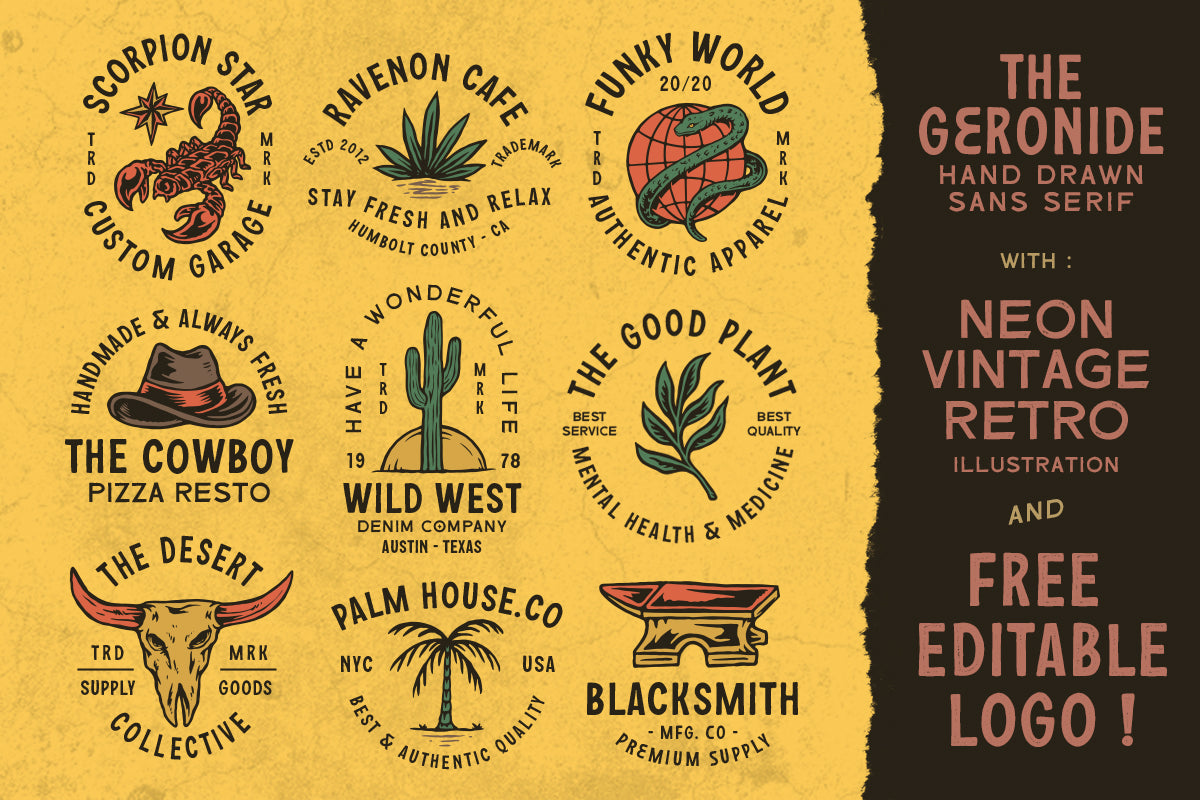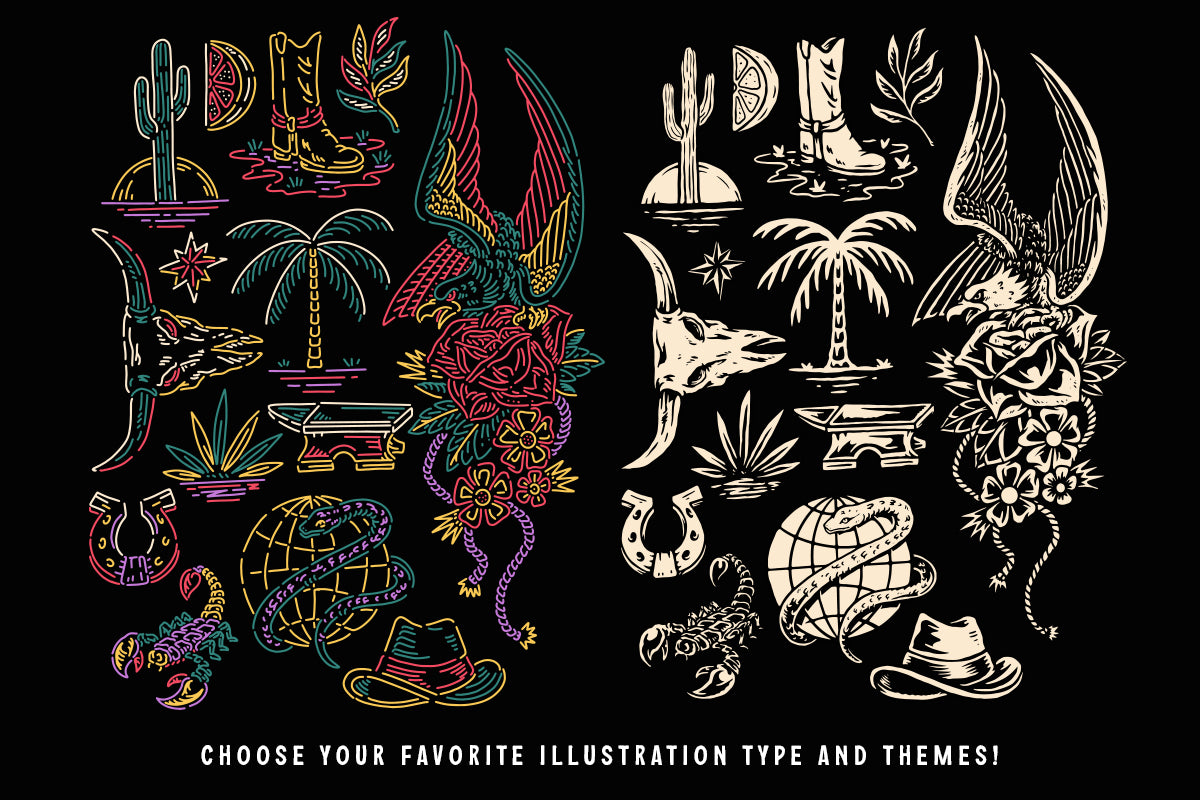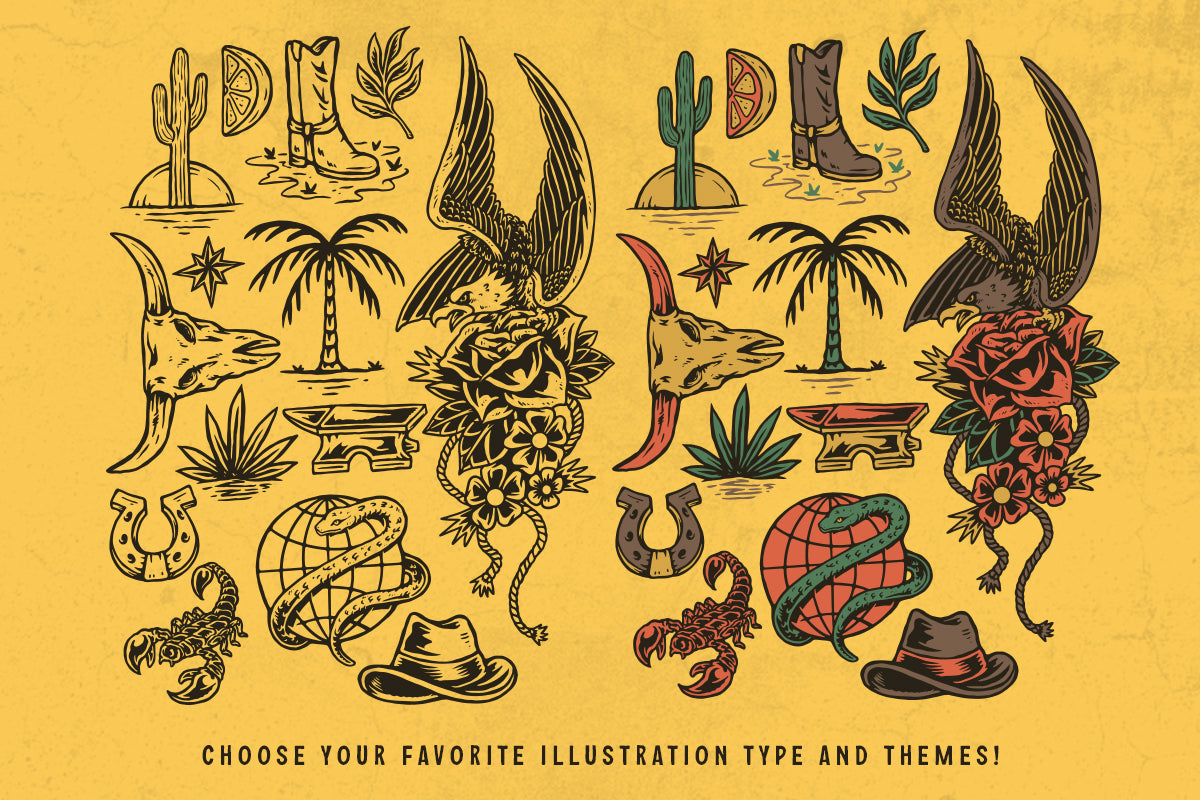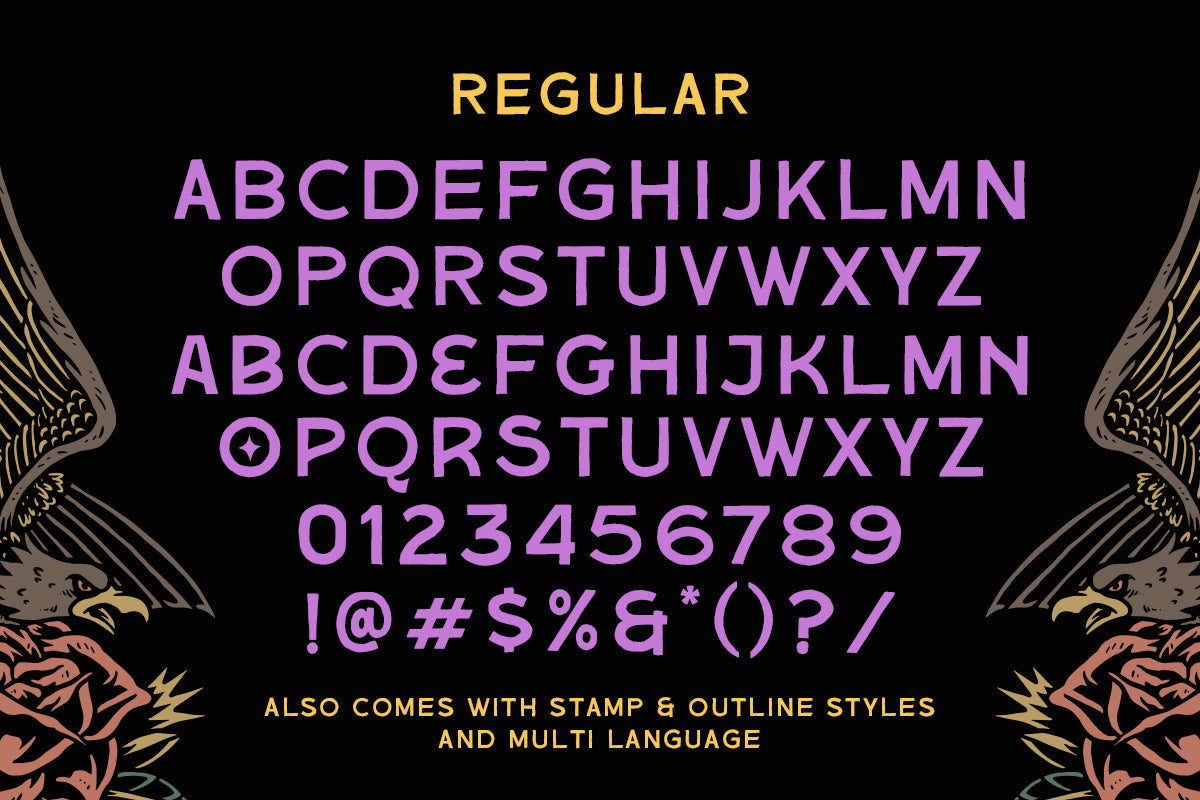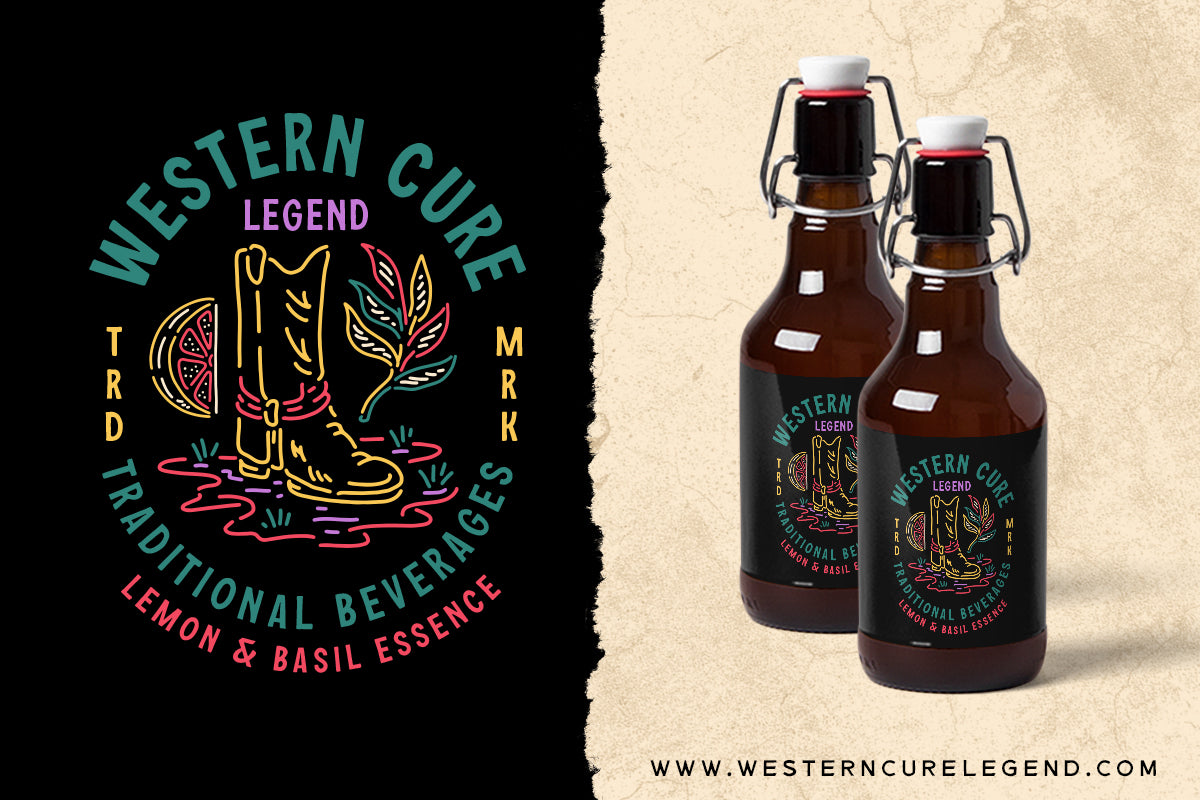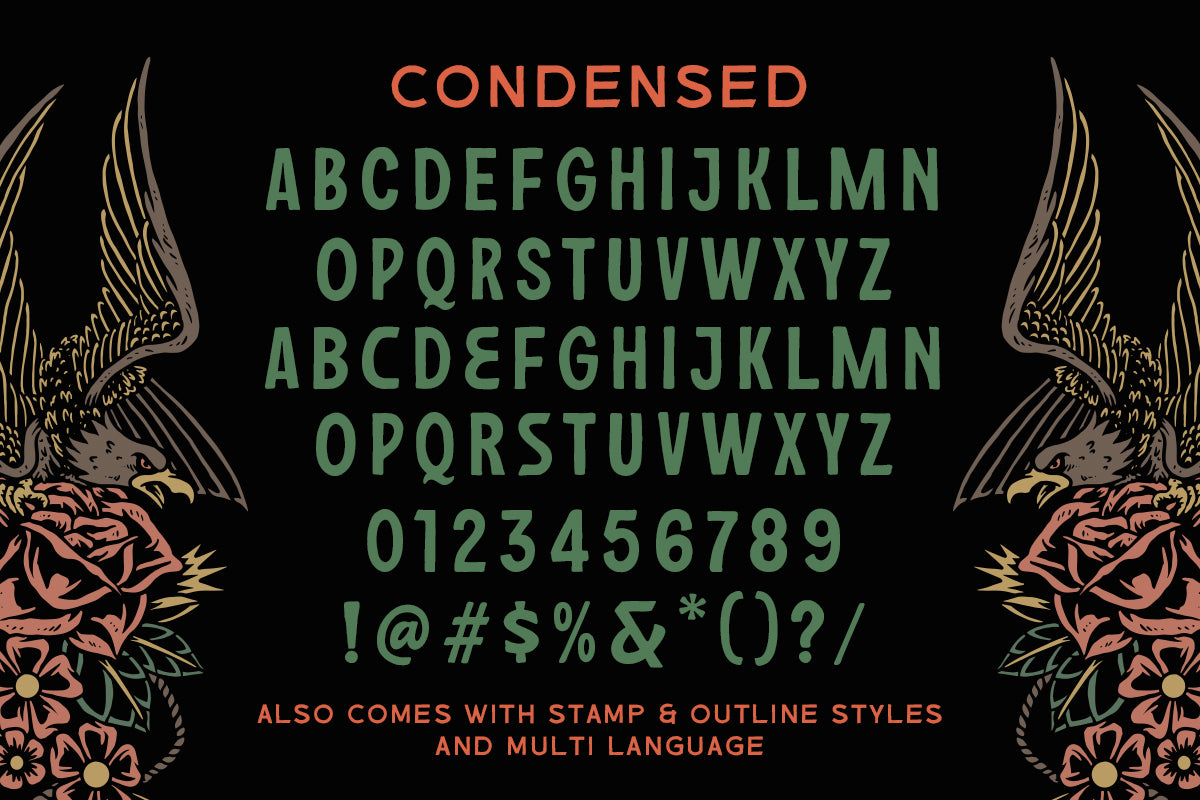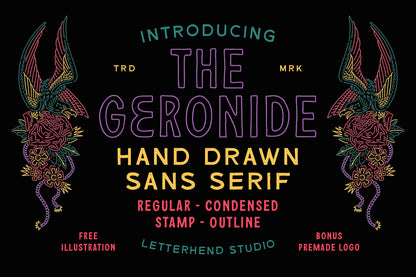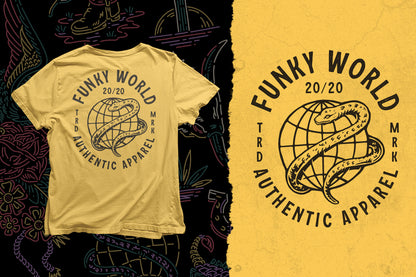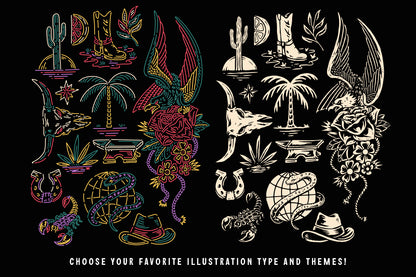
Introducing The Geronide - A hand-drawn sans serif. This unique font has four styles: Regular, Condensed, Stamp, and Outline.
It's very suitable for those who like to create a vintage design theme, especially with the amazing and detailed illustrations included as a bonus!
Key Features
4 Font Styles: Regular, Condensed, Stamp, and Outline
14 Neon Vintage Retro Illustrations
9 Editable Logo Templates
Numbers and Punctuation
Multilingual Support